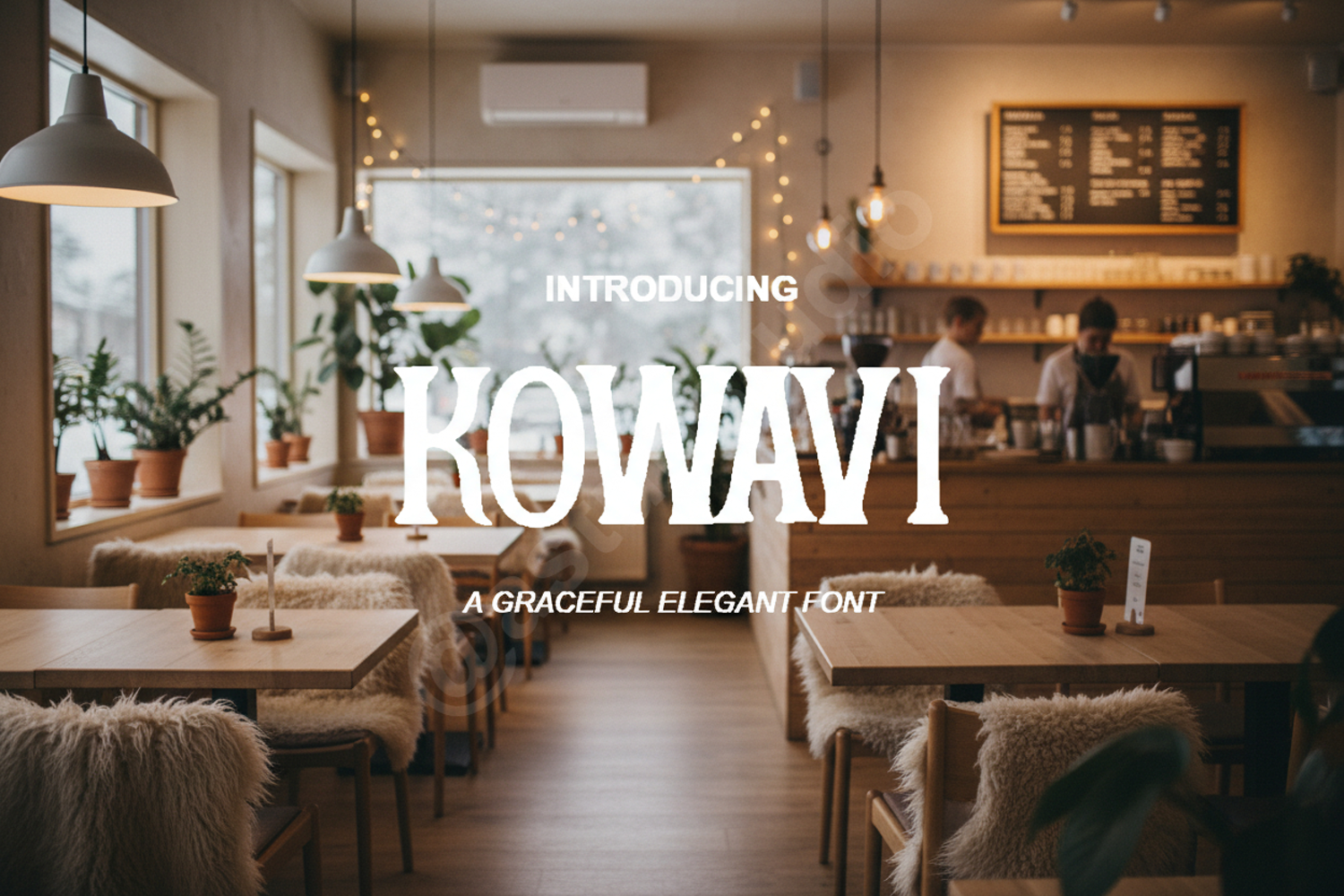
Kowavi | Modern & Sophisticated Sans Serif
Kowavi
Introduction:
Elevate your creative projects with Kowavi, a premium sans-serif typeface that strikes the perfect balance between modern minimalism and timeless sophistication. Designed with precision, Kowavi offers a clean aesthetic that ensures readability while maintaining a high-end feel for any professional application. Whether you are crafting a luxury brand or a sleek digital interface, this font provides the versatility needed to stand out.
- Comprehensive Multilingual Support
- Standard Glyphs, Alternates, and Ligatures
Optimized Use Cases:
- Branding and Visual Identity: Create memorable logos and high-end corporate stationery.
- Editorial Design: Perfect for magazine layouts, book covers, and bold headlines.
- Wedding and Events: Add a touch of modern class to invitations, menus, and place cards.
- Digital Marketing: Enhance your social media graphics, website banners, and app interfaces.
- Product Packaging: Ideal for luxury goods, lifestyle brands, and modern retail packaging.